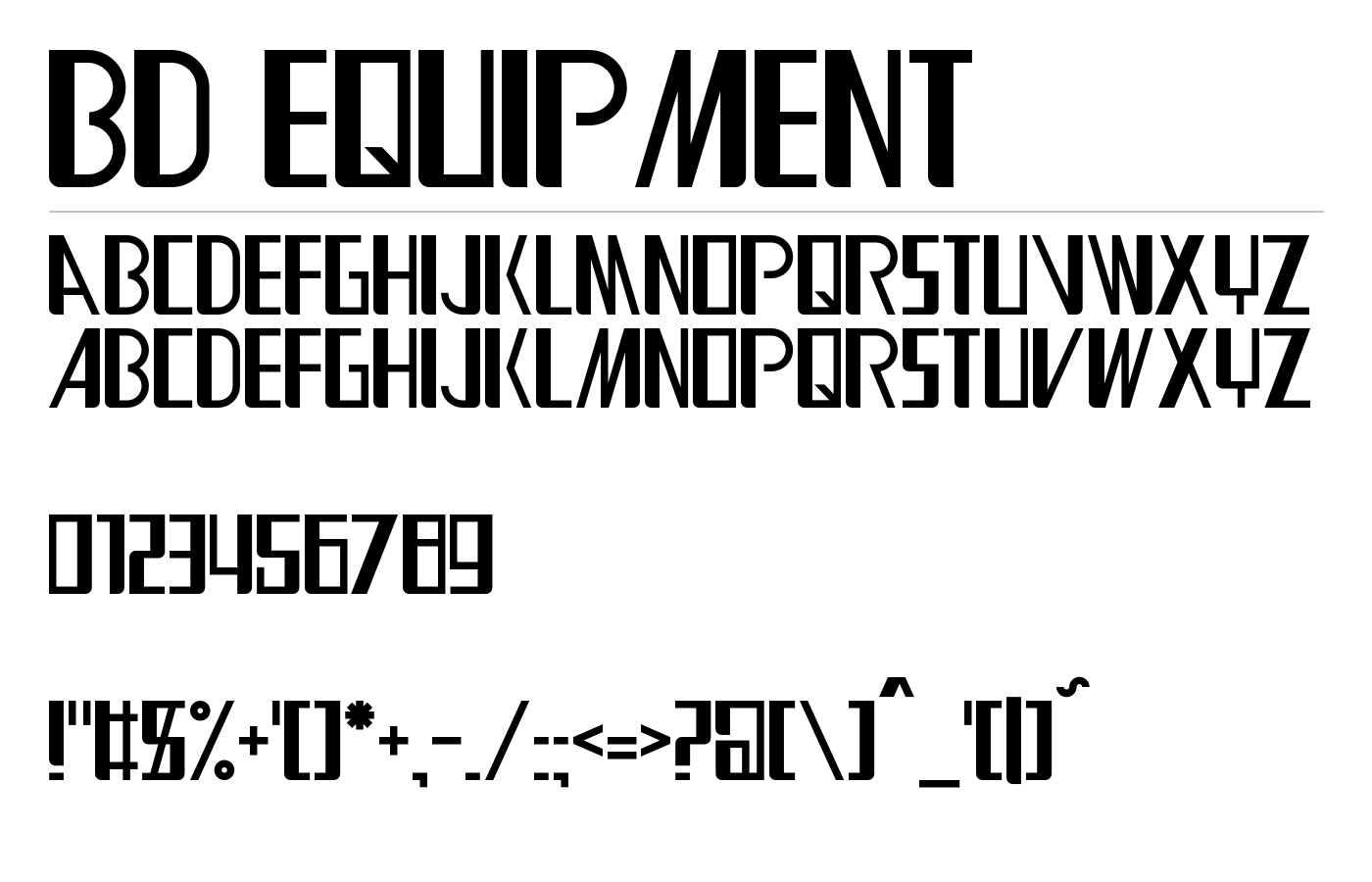
BD Equipment is a bold, condensed sans serif font with a strong geometric and industrial feel. Its sharp angles, narrow letterforms, and high contrast strokes create a modern, technical aesthetic that works well for branding, headlines, and packaging where a striking, futuristic look is desired. This font is ideal for projects needing a bold presence with an edgy, contemporary vibe.
BD Equipment Font
About BD Equipment Font
| Font family | BD Equipment Font |
| Designer | Lopetz |